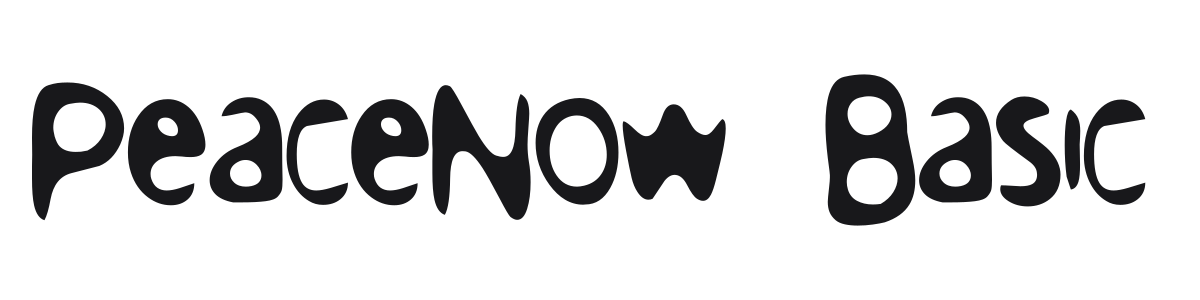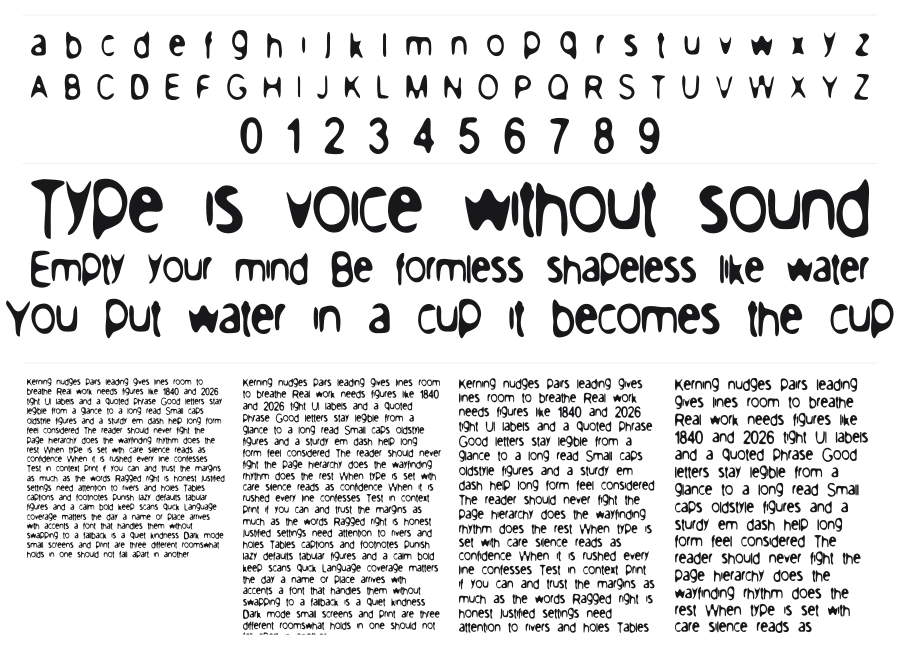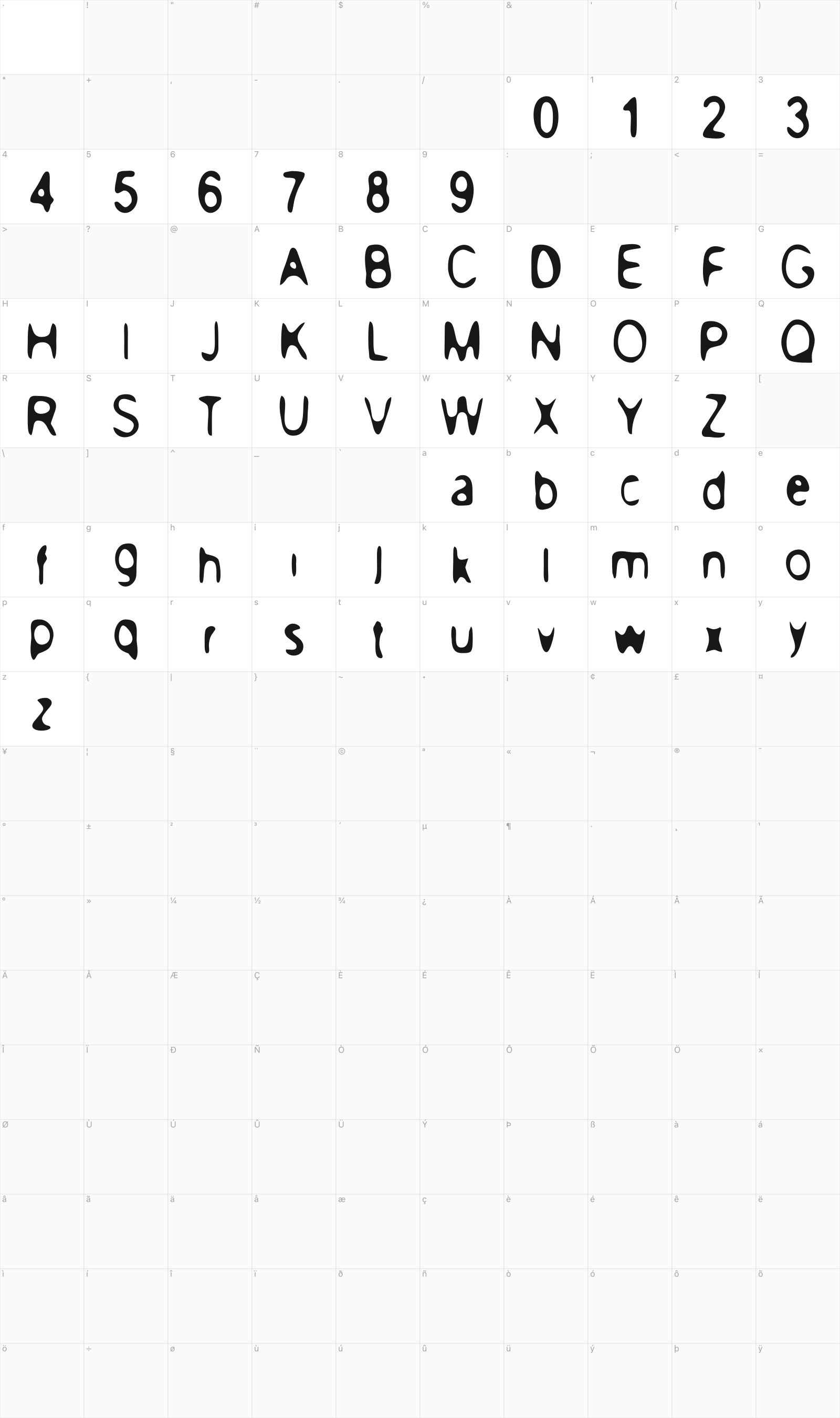
PeaceNow Basic
PeaceNow Basic is a heavy, blob-like groovy sans with inflated rounded strokes and an unmistakably 1960s–70s counterculture spirit. Characters bulge and merge with organic irregularity, somewhere between psychedelic poster lettering and hand-painted signage. The author designed it with anti-war sentiment in mind, and that attitude comes through.